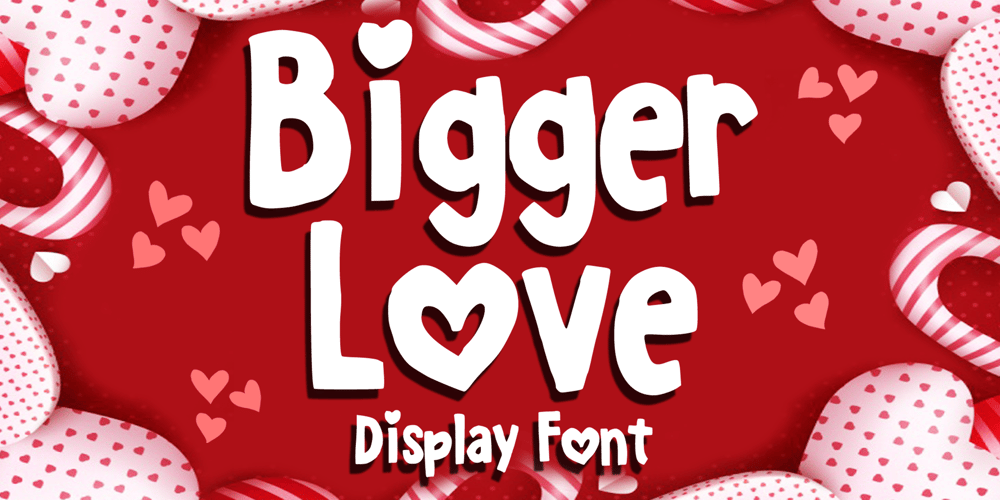
Bigger Love Font Family was designed by Gabriel Valentinus and published by Mvmet. Bigger Love contains 1 styles and family package options. Bigger Love is a fun and lovely handlettering font. You can use it for anything ranging from t-shirts, book designs, packaging and greeting cards to stickers and posters, or anything that needs a casual touch. If you want to use it for Christmas or Valentine or other lovely themed designs, it will be your perfect font to pick. Fall in love with its incredibly versatile style, and use it to create lovely designs!